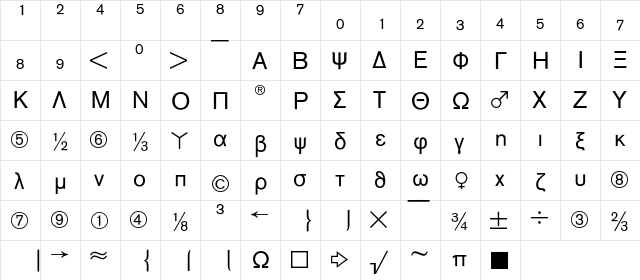
AG Greek + Math Pi BQ Regular
Design Context for AG Greek + Math Pi BQ Typeface
AG Greek + Math Pi BQ is a composed and adaptable typeface that performs quietly and consistently across a wide range of design contexts.